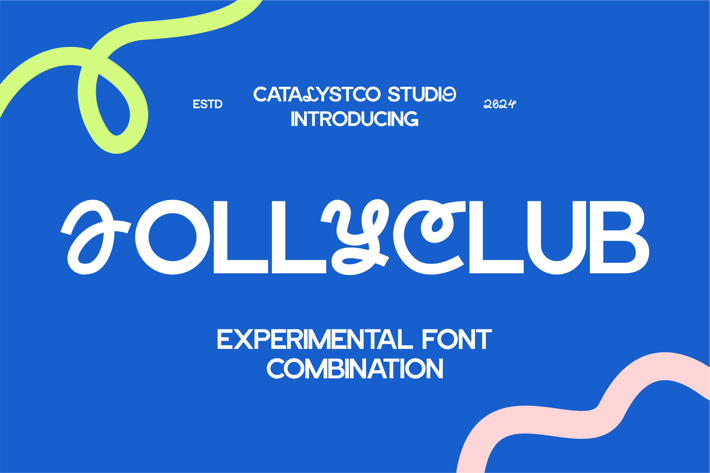
Jolly Club Experimental Font Combination
Jolly Club Experimental Font Combination is an experimental font combo that brings playful energy and bold modernity into a single dynamic display typeface. Its core essence lies in the synergy between solid, modular sans-serif letters and expressive, looping alternates — resulting in a hybrid identity that’s both quirky and clean.
With its loud personality and upbeat rhythm, JOLLYCLUB is built to shine in Instagram visuals, branding for children’s or youth-centric products, and creative editorial covers. The contrasting mix of geometric structure and handcrafted calligraphic flair gives it a unique aesthetic that instantly draws attention.
Each letter is designed with intentional distinction — standard characters are clear and bold, while alternates (highlighted in blue) introduce funky, ribbon-like strokes. This makes it ideal for logo design, social media graphics, packaging, headline posters, and even indie fashion campaigns.
Main Features
Ligatures & Alternate
Numeral & Punctuations
Jolly Club Suitable for
Instagram branding, Children’s product packaging, Event flyers & posters, Indie fashion campaigns, Magazine & zine titles, Youth-focused content, Merch designs & stickers, Bold brand logos, Website hero titles, Social media promo graphics